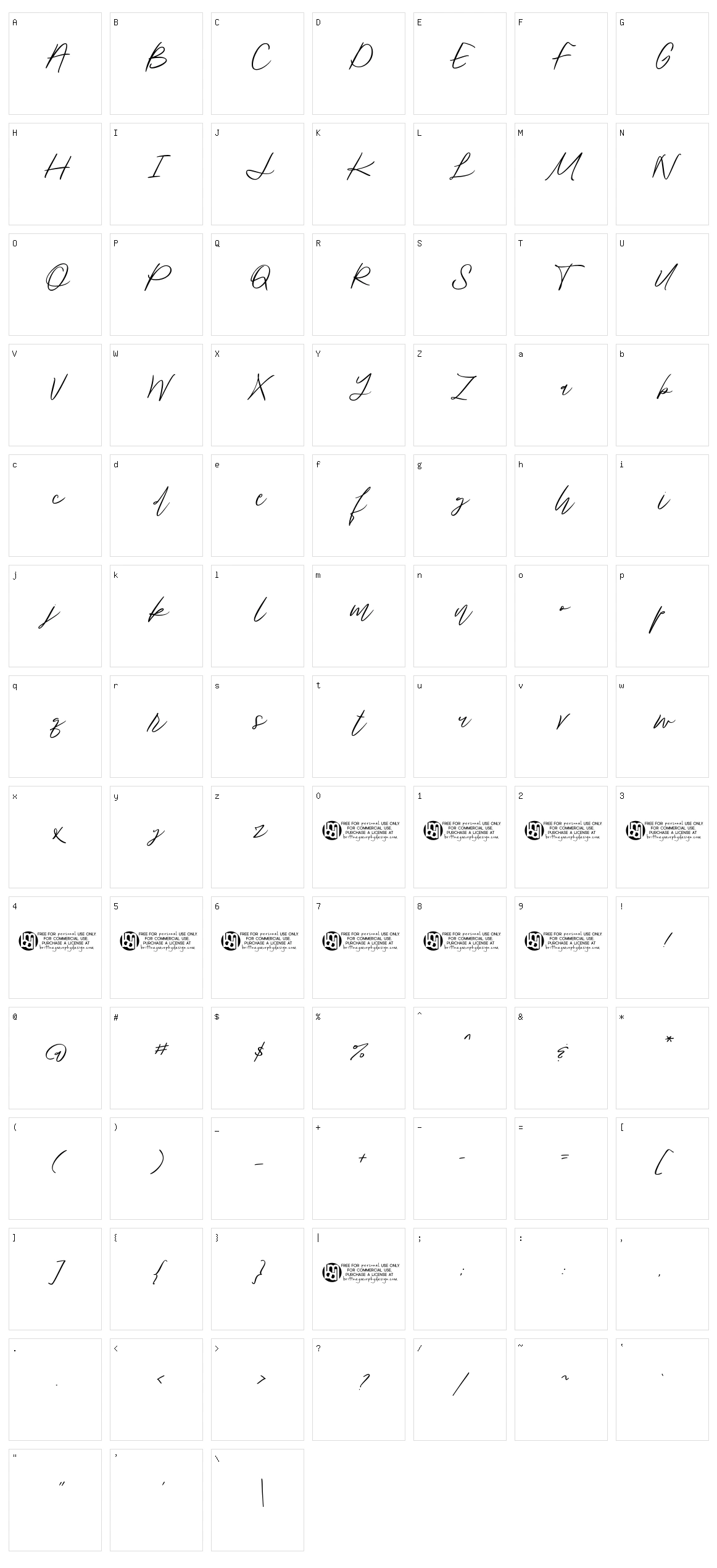
Bjornsson Signature
Designed by: Brittney Murphy Design
Description: The free font Bjornsson Signature is carefully designed by Brittney Murphy Design, showcasing a thoughtful balance of creativity and usability and falls under the Script font style. When you download the ZIP file, it contains only 94.41 KB of font files, making it lightweight and quick to download. Please review the license details below to understand permitted usage and distribution rights. If license information is not available, we recommend using this font for personal projects only or contacting the author directly for commercial usage permissions.